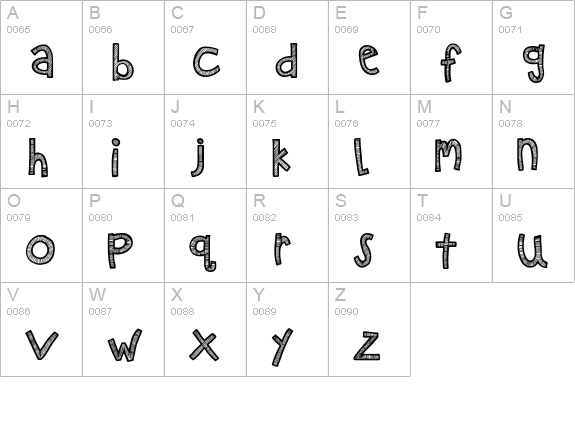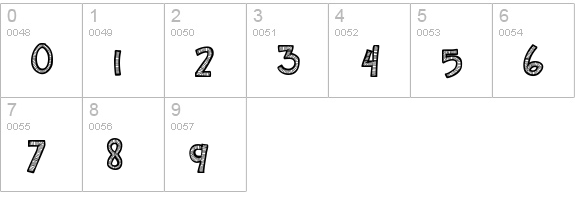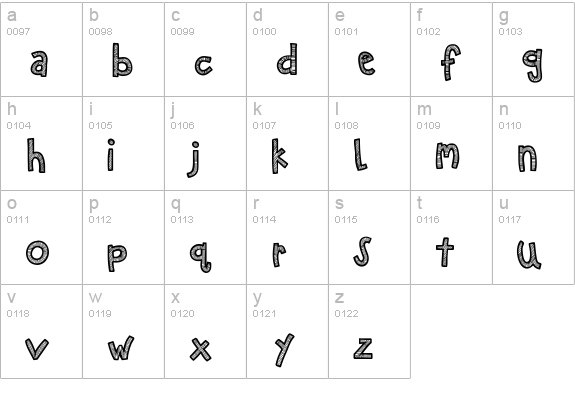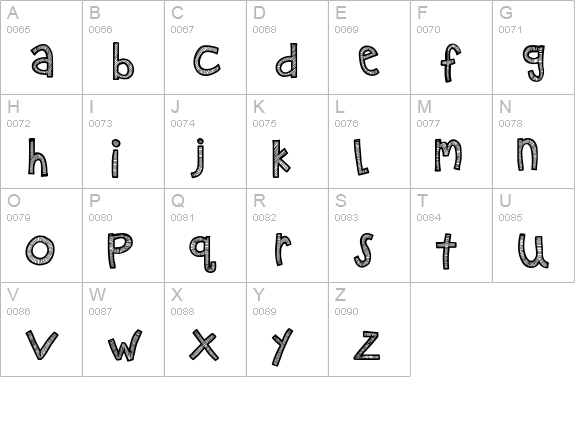
KBZipaDeeDooDah font is a delightful and whimsical typeface that will bring a touch of magic to your design projects. With its playful curves and charming characters, this font captures the essence of joy and happiness. Whether you're creating a children's book, crafting invitations for a birthday party, or designing a cheerful logo, KBZipaDeeDooDah font will add a dash of enchantment to your creations. But what makes KBZipaDeeDooDah font even more special is that it is free! Yes, you heard it right. This incredible font is freely available to download at FontsMarket.com. Now, you don't have to worry about breaking your budget to add a touch of whimsy to your designs. Just head over to FontsMarket.com and grab your copy of KBZipaDeeDooDah font to start spreading smiles and laughter through your creative projects. With its wide range of characters and ligatures, KBZipaDeeDooDah font offers versatility and flexibility. Whether you need uppercase letters, lowercase letters, numbers, punctuation marks, or special symbols, this font has got you covered. Its clean and legible design ensures that your message will be conveyed clearly, while its unique personality adds a touch of fun to every word. So why wait? Go ahead and download KBZipaDeeDooDah font from FontsMarket.com today. Let your imagination take flight as you explore the endless possibilities this font has to offer. Whether you're a professional designer, a passionate hobbyist, or someone who simply loves to create, KBZipaDeeDooDah font will be your perfect companion in bringing your ideas to life. Remember, this font is free, so don't miss out on this incredible opportunity to add a sprinkle of magic to your designs. Download KBZipaDeeDooDah font now and let your creativity soar!